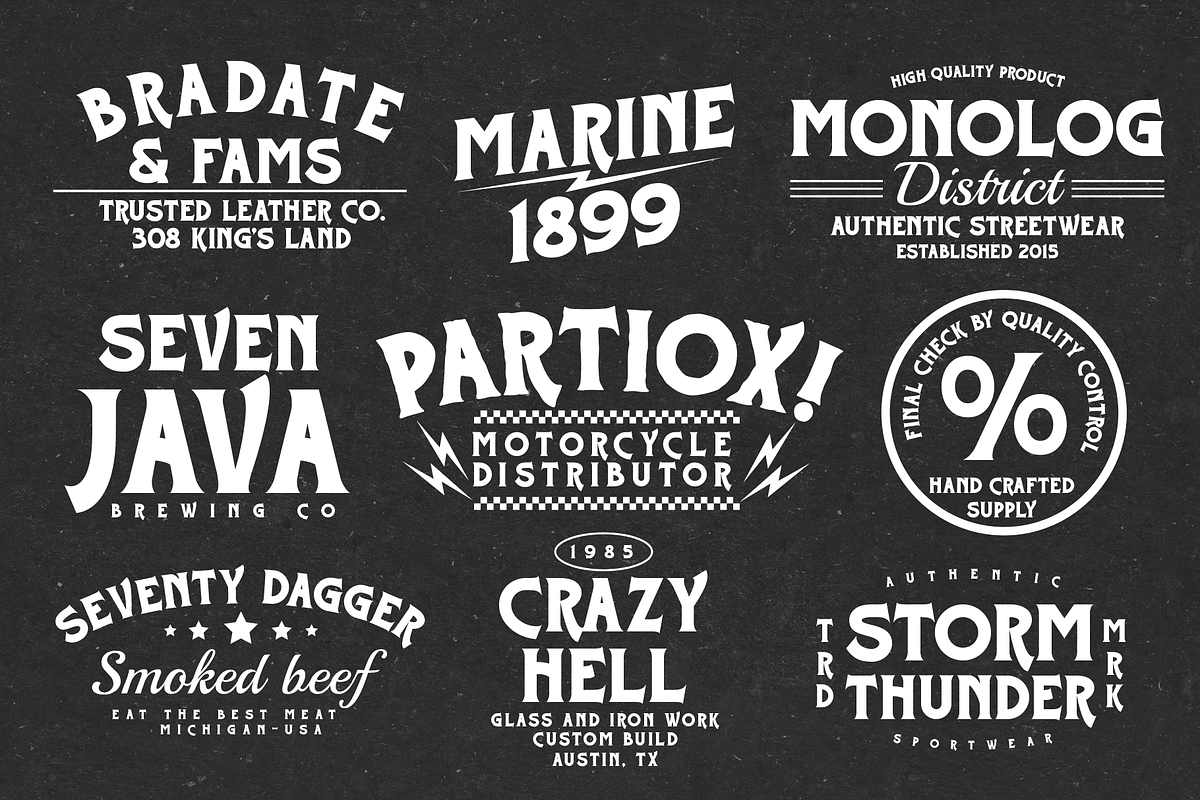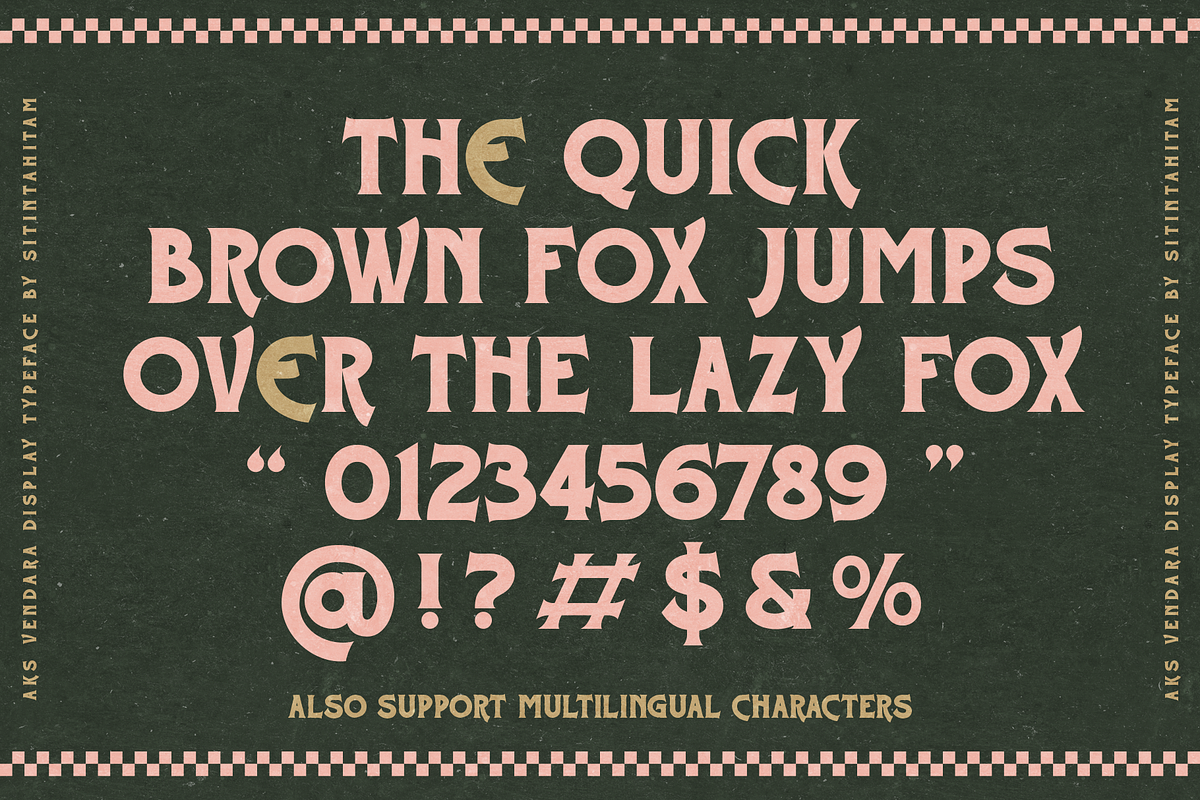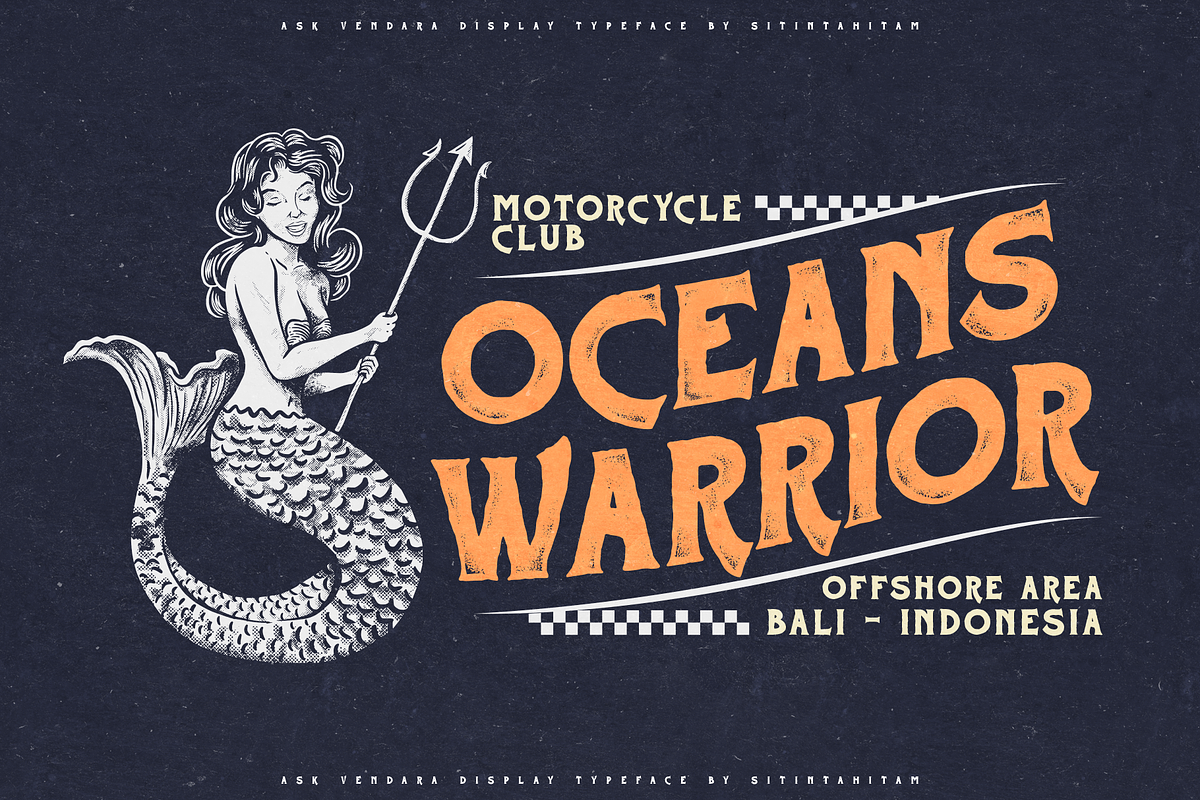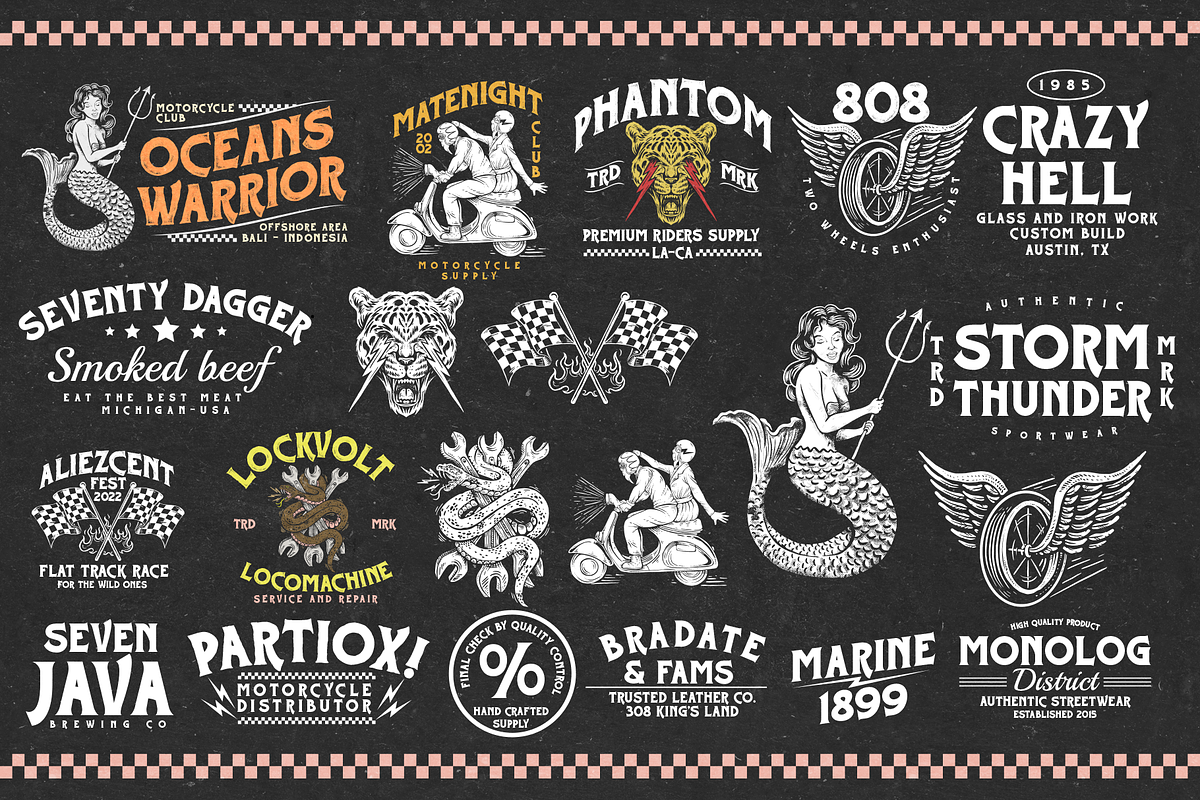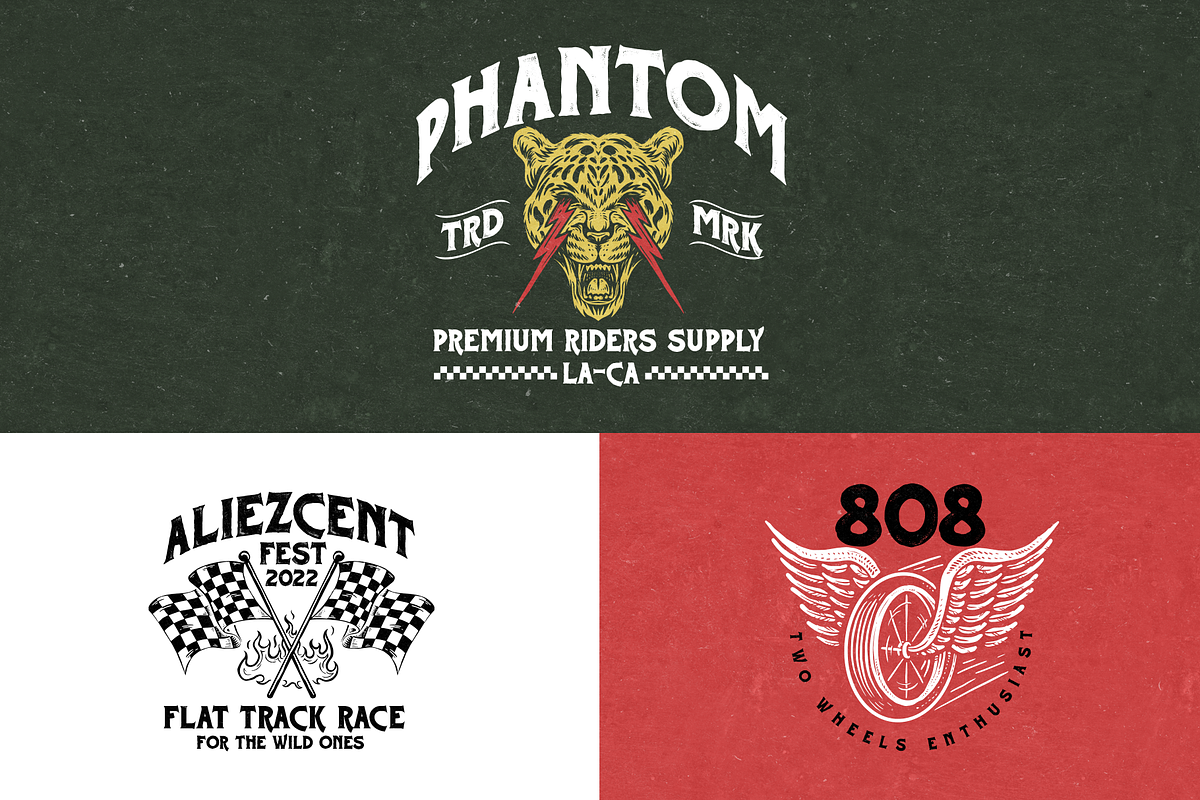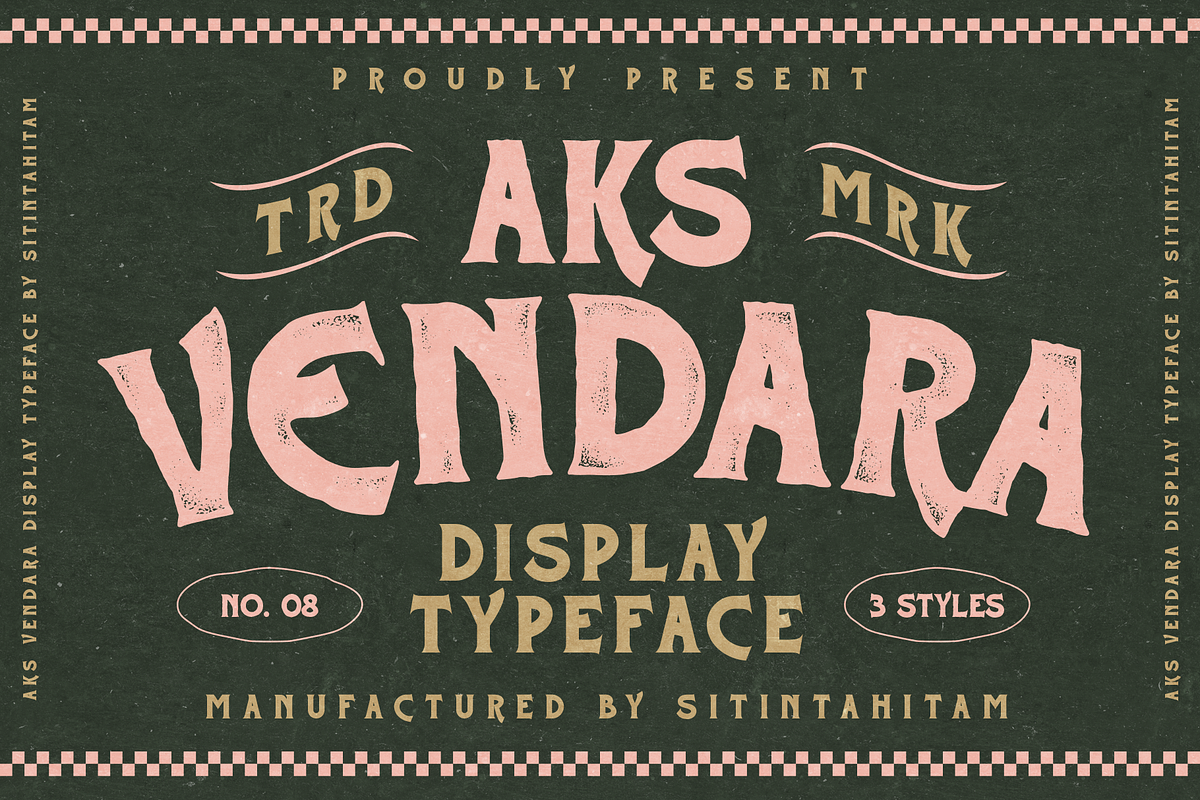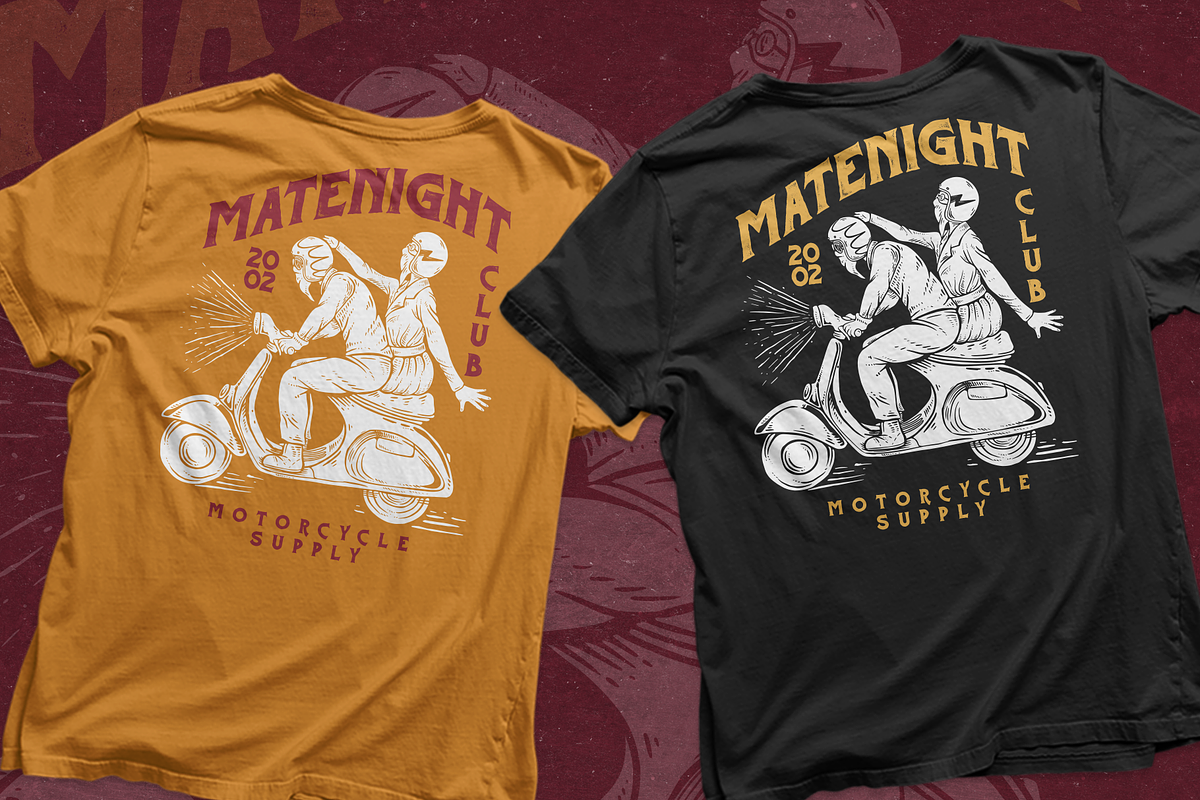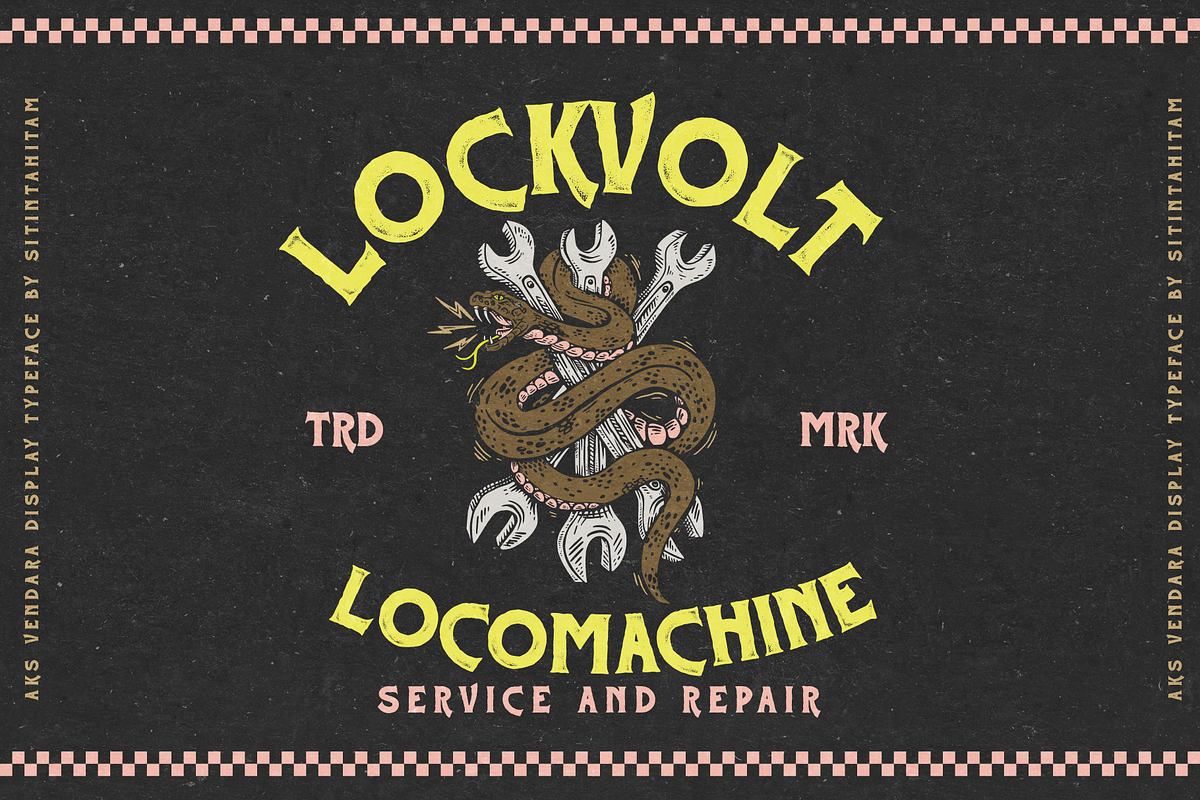
Aks Vendara + Extras
AKS VENDARA
Aks Vendara is a display typeface with 3 style, regular, stamp, and inked. This typeface inspired by motorcycle and custom culture. Aks Vendara perfect for people looking for vintage with rough feel. Aks Vendara also come with EXTRAS PREMADE LOGO AND ILLUSTRATIONS make better design. Suitable for any graphic designs such as branding materials, t-shirt, print, logo, poster, packaging .etc